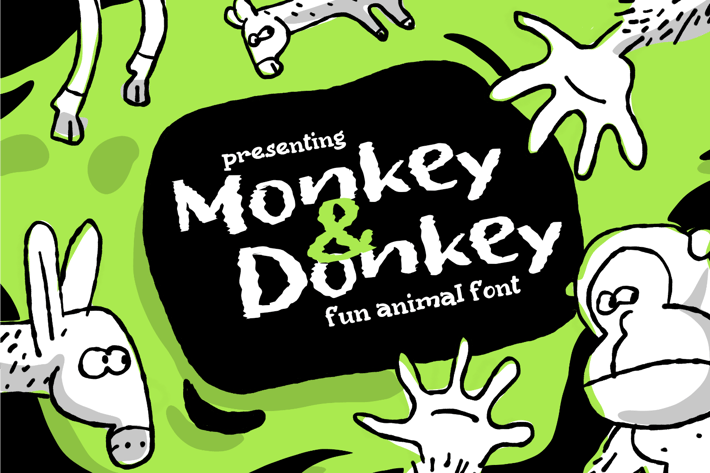
MonkeyDonkey, informal book cover font
Our Monkey&Donkey new font.
Good for children book, cover or beginner guide book cover design.
Very casual but also neat.